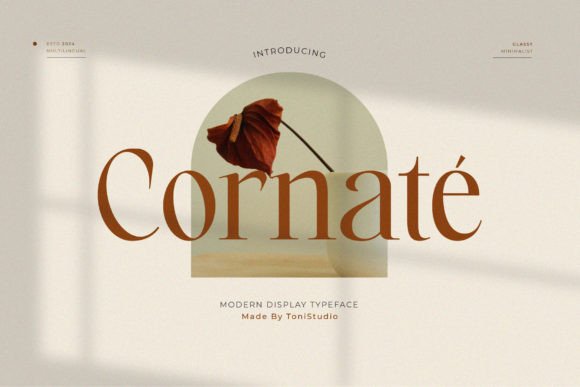
Cornate Font: Elevate Your Designs with Elegance and Sophistication
In the world of typography, a well-crafted font can make all the difference in elevating your designs to the next level. Introducing the Cornate typeface, a serif font that seamlessly blends elegance, modernity, and classiness. This versatile font is perfect for a wide range of design projects, from branding and logos to wedding designs, social media posts, and product packaging.
Key Features of Cornate Font
- Serif Typeface: Cornate font features a classic serif design, adding a touch of sophistication to your projects.
- Elegant and Modern: The font’s elegant and modern style ensures that your designs stand out from the crowd.
- High Legibility: Cornate font is designed with high legibility in mind, making it perfect for body text and headlines.
- Multilingual Support: The font supports multiple languages, allowing you to create designs for a global audience.
Endless Design Possibilities with Cornate Font
The Cornate font is an incredibly versatile typeface that can be used for a wide range of design projects, including:
- Branding Projects: Create a lasting impression with a custom logo or brand identity.
- Logos: Design a professional logo that showcases your brand’s personality.
- Business Cards: Make a statement with stylish business cards that reflect your brand’s values.
- Wedding Designs: Add a touch of elegance to your wedding invitations, programs, and decorations.
- Social Media Posts: Create engaging social media content that stands out from the crowd.
- Advertisements: Design eye-catching ads that capture your audience’s attention.
- Product Packaging: Elevate your product packaging with a sophisticated design.
- Design Products: Create stunning design products, such as brochures, flyers, and posters.
- Labels: Design professional labels for your products or services.
- Photography: Add a touch of elegance to your photography with stylish watermarks.
- Invitations: Create beautiful invitations for special occasions.
- Stationery: Design stylish stationery that reflects your brand’s personality.
- Uppercase and Lowercase letters: The font includes both uppercase and lowercase letters, allowing for flexible design options.
- Numbers and Punctuation: The font includes a range of numbers and punctuation marks, making it suitable for a wide range of design projects.
- Multilingual support: The font supports multiple languages, allowing you to create designs for a global audience.